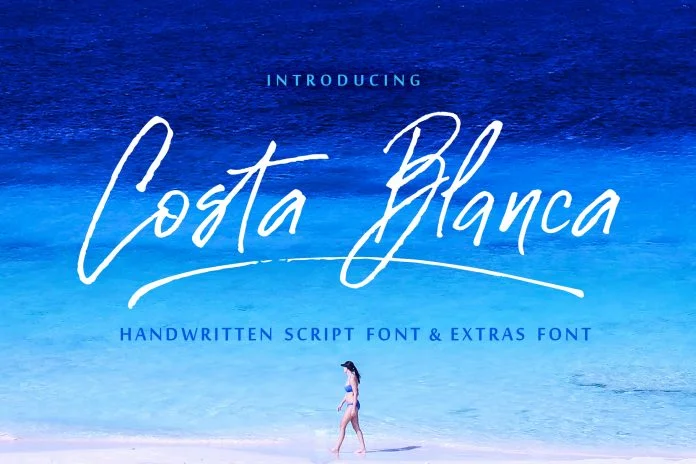
Costa Blanca Font
Costa Blanca Font is perfect for Mediterranean resort branding, Spanish coastal tourism, luxury beach club signage, seaside restaurant menus, Spanish villa rentals, coastal real estate advertising, Mediterranean cruise promotions, beachfront hotel materials, Spanish lifestyle campaigns, and elegant coastal event invitations.
Costa Blanca Font is exciting because it captures the pristine beauty and sophisticated elegance of Spain's white coast through clean, luminous letterforms that evoke Mediterranean sunshine, coastal luxury, and Spanish coastal charm with refined appeal. This elegantly designed typeface combines Spanish coastal aesthetics with contemporary functionality, making it perfect for brands that want to communicate Mediterranean luxury, coastal sophistication, and authentic Spanish seaside experiences.
The Costa Blanca Font family includes clean weights with Mediterranean-inspired character styling, featuring coastal design elements and Spanish decorative variations. The font showcases seaside design details, coast-refined proportions, and Spanish character characteristics that create a comprehensive typographic system for coastal and Mediterranean brand applications.
Costa Blanca Font Free Download provides designers with access to premium Mediterranean typography that brings authentic Spanish coastal character to contemporary luxury tourism design projects. This expertly crafted typeface has been developed to capture the pristine beauty and sophisticated appeal of Spain's white coast while ensuring optimal performance in luxury hospitality applications. The font's coastal character and Spanish appeal make it ideal for Mediterranean resort brands and Spanish lifestyle businesses.
The Mediterranean sophistication of Costa Blanca Font makes it an invaluable tool for luxury resorts, Spanish restaurants, and coastal tourism companies that need typography capable of communicating Mediterranean elegance and Spanish coastal authenticity. The font's luminous character helps establish connections with audiences seeking sophisticated Spanish experiences and authentic Mediterranean luxury that embodies the pristine beauty of Spain's coastline.
Mediterranean resorts, Spanish dining establishments, and coastal luxury brands consistently choose Costa Blanca Font for its ability to convey Spanish coastal sophistication and Mediterranean elegance through typography. The font excels in applications where establishing coastal credibility and Spanish appeal are essential to brand positioning, making it particularly effective for luxury tourism, Spanish hospitality, and Mediterranean lifestyle brands targeting sophisticated travelers.
This font's comprehensive character set includes Mediterranean-inspired letterforms, coastal numerals, Spanish punctuation marks, and seaside symbols that support authentic Spanish coastal typography composition. The consistent elegant styling maintains the Costa Blanca sophistication theme throughout all characters while ensuring professional readability across all Mediterranean and Spanish design projects requiring Costa Blanca Font Free Download functionality.